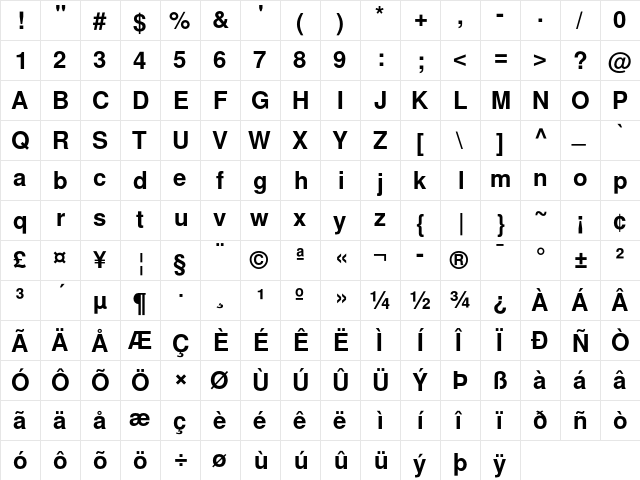
NimbusSanL Bold
| Foundry | (URW)++ Design & Development |
Design Context for NimbusSanL Typeface
NimbusSanL offers clean, dependable letterforms without strong stylistic allegiance, making it a practical choice for designers who need flexibility. Its bold stroke weight gives it real presence on the page.
Pro Tip: Pair NimbusSanL with a font of contrasting weight or personality to build a more expressive typographic hierarchy.